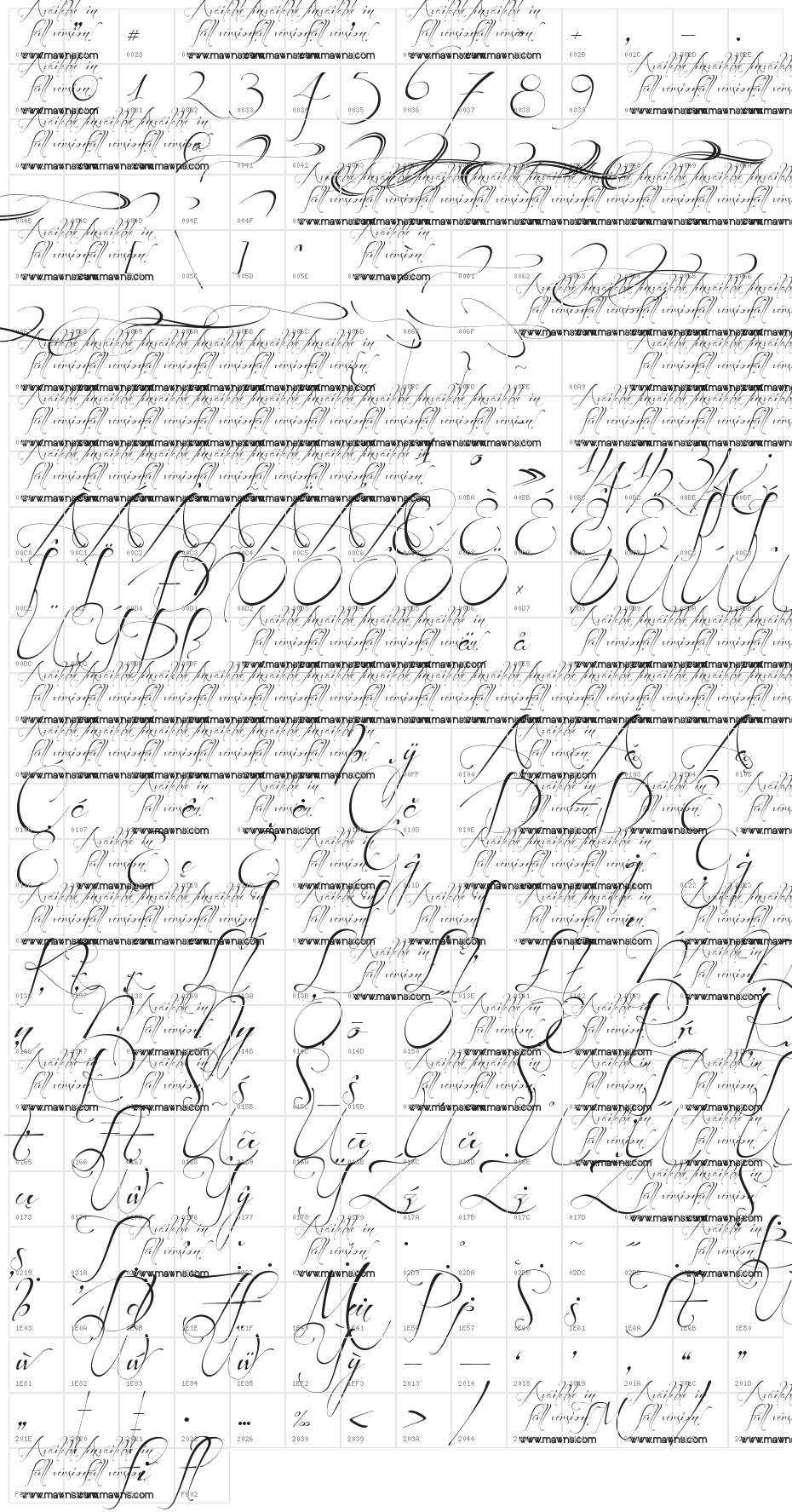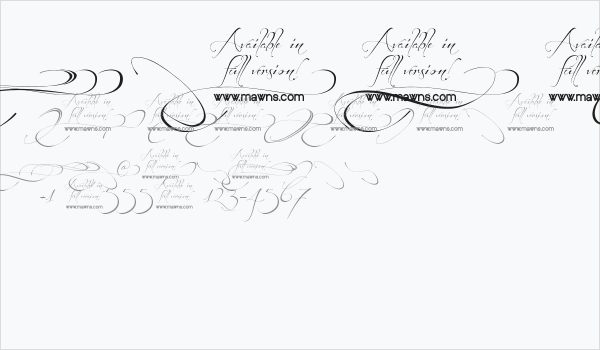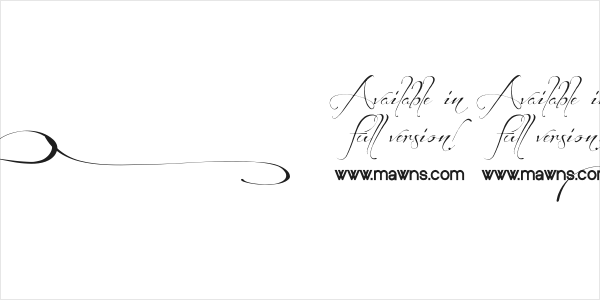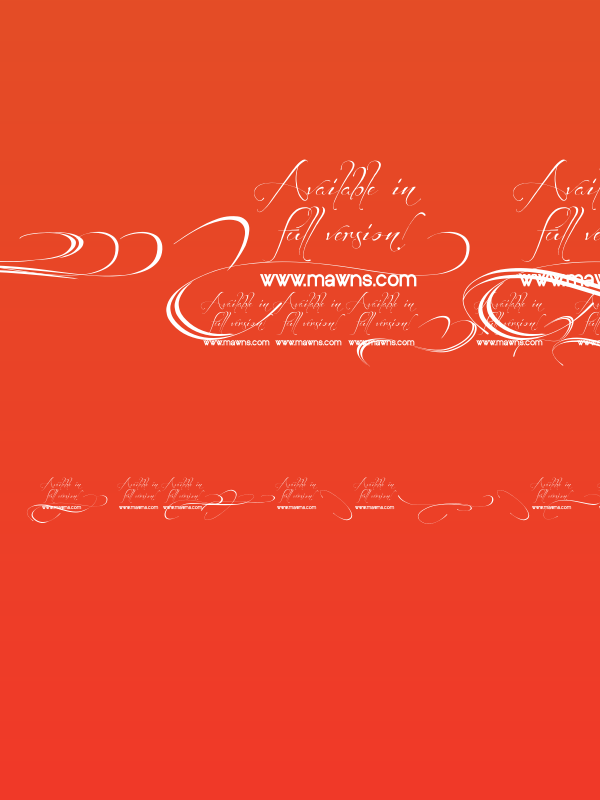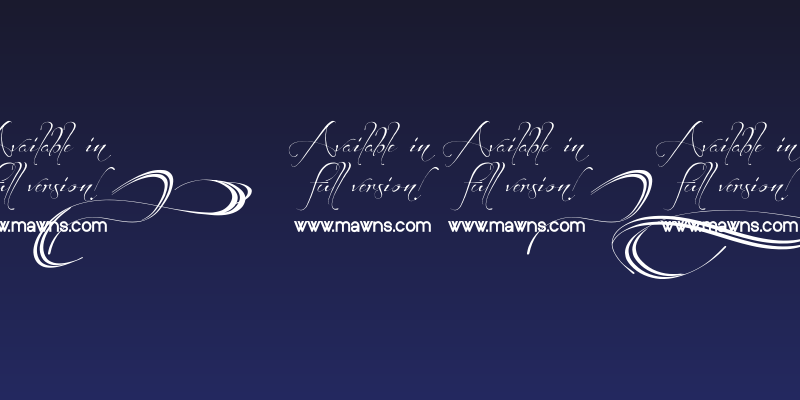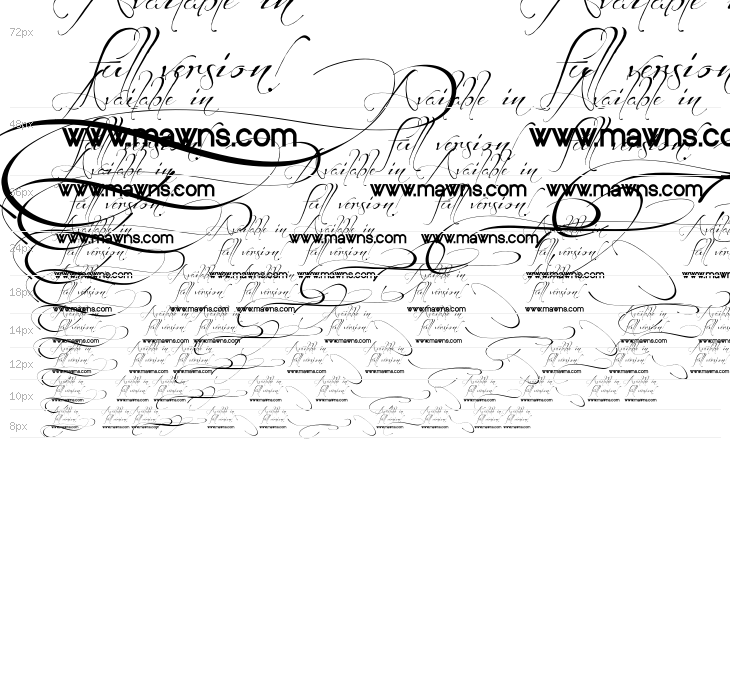
Before the Rain Swashes DEMO Font
Before the Rain Swashes DEMO Description
This font is an elegant and highly decorative script style, characterized by its intricate swashes and flourishes. The letters are connected with sweeping, fluid strokes that create a sense of movement and grace. The uppercase letters are particularly elaborate, with extended loops and curves that add a dramatic flair. The lowercase letters maintain a consistent flow, complementing the ornate nature of the uppercase. The numerals are slender and stylish, matching the overall aesthetic. This font is perfect for creating a sophisticated and artistic look, ideal for formal invitations, branding, and decorative projects.
| Proposed Projects | Ideal for wedding invitations, luxury branding, artistic projects, and decorative designs. |